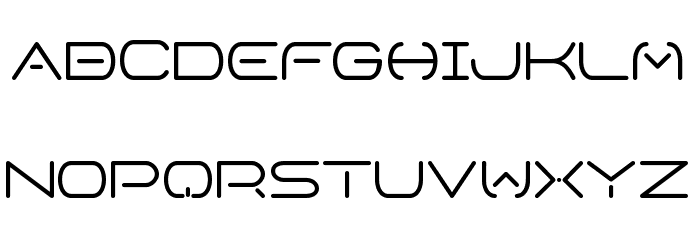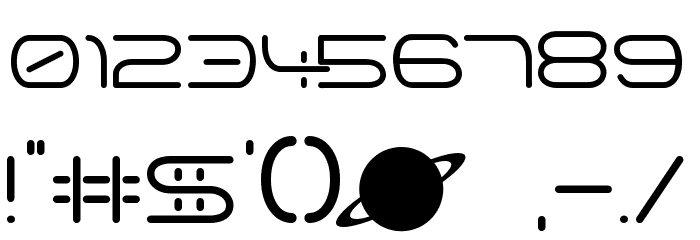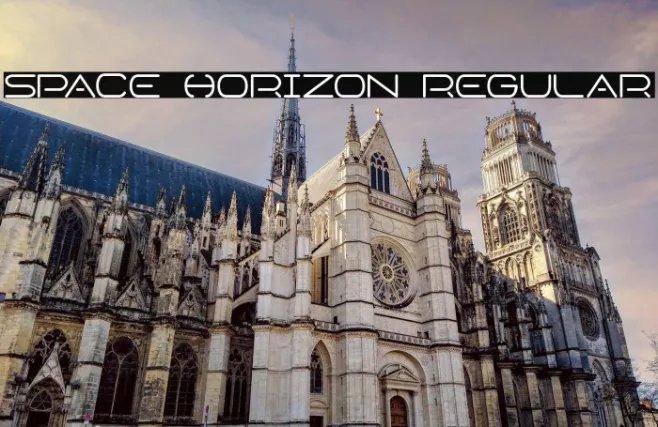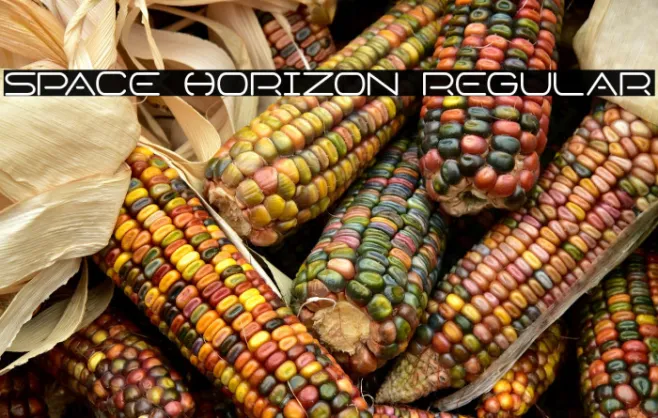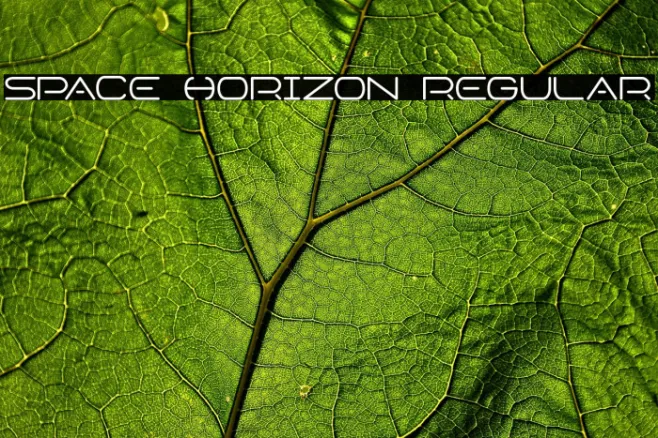
Space Horizon Regular Font
This futuristic font features a sleek, geometric design with rounded edges and a modern aesthetic. The characters are constructed with a consistent line weight, giving it a clean and uniform appearance. The font incorporates unique elements such as disconnected lines and circular cutouts, adding a distinctive, space-inspired feel. The numerals and special characters maintain the same stylistic approach, ensuring a cohesive look across all glyphs. Its minimalistic yet innovative design makes it suitable for projects that require a contemporary and technological vibe.
A futuristic, geometric font with a sleek, space-inspired design.
- Proposed Projects: Ideal for sci-fi themed projects, technology branding, modern posters, and digital interfaces.